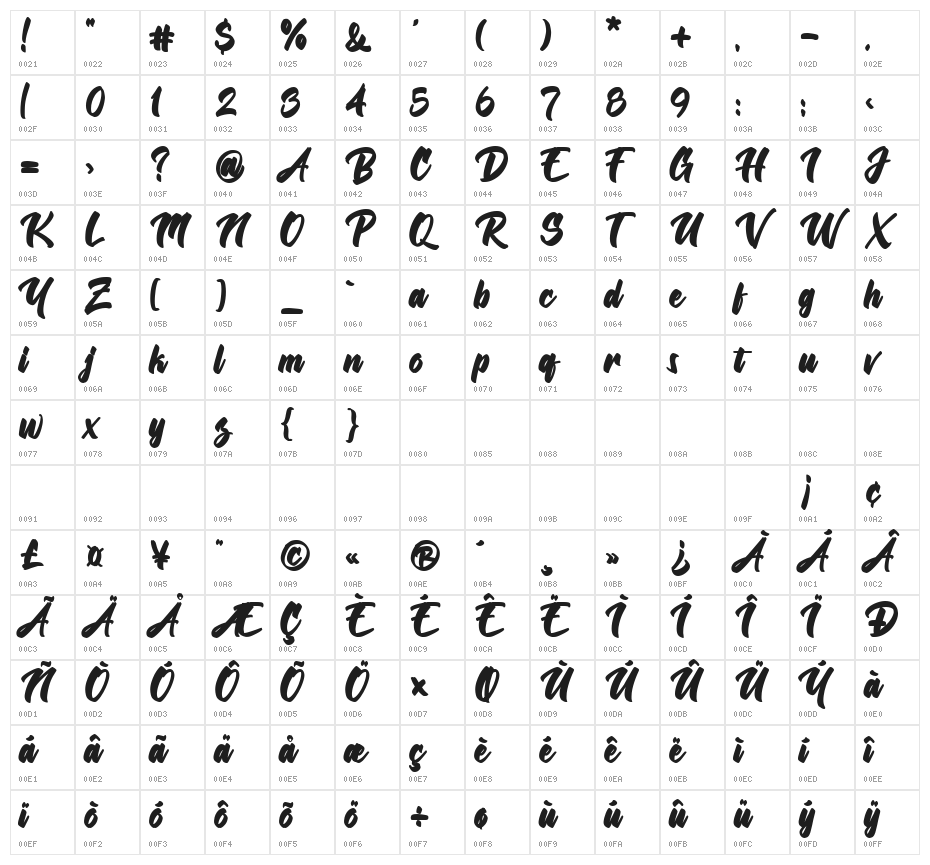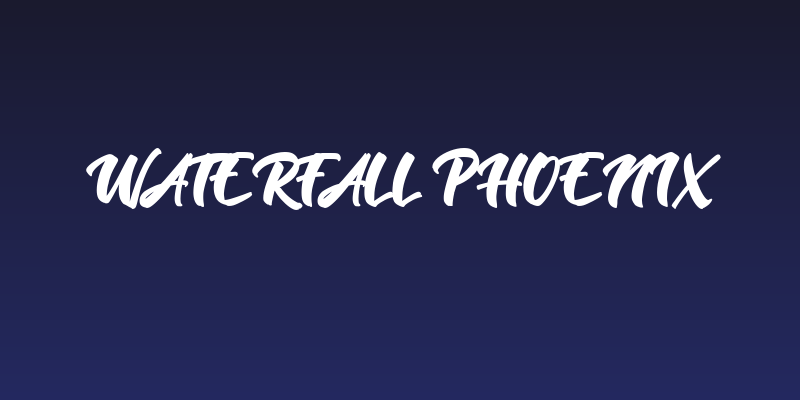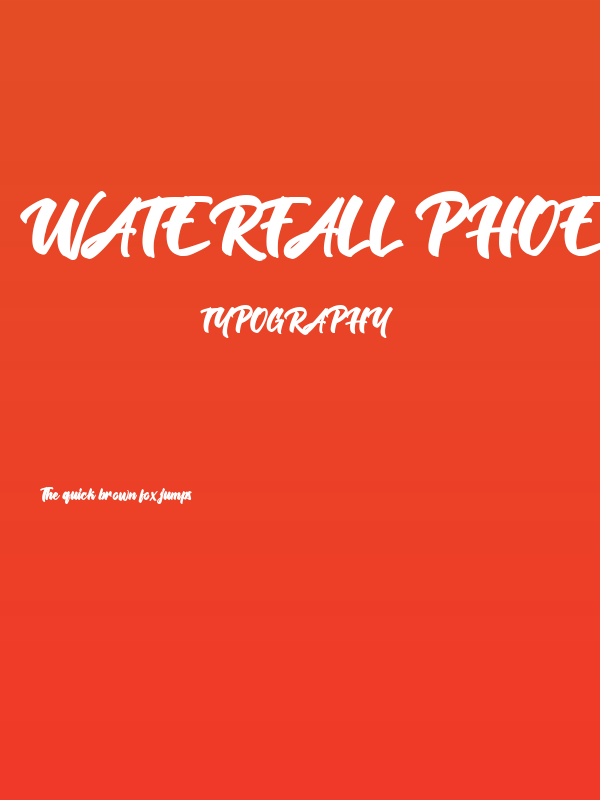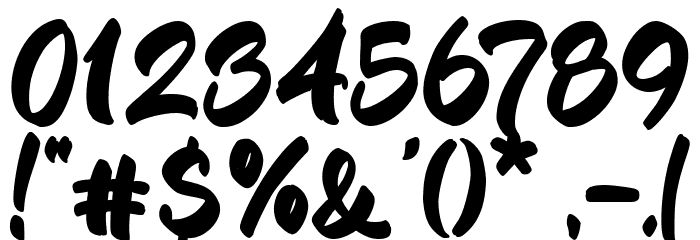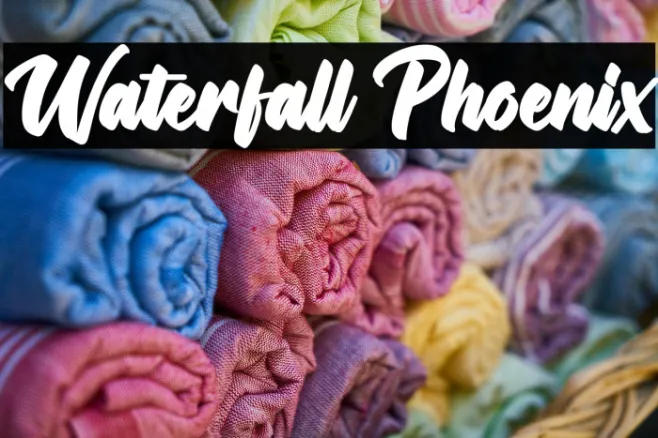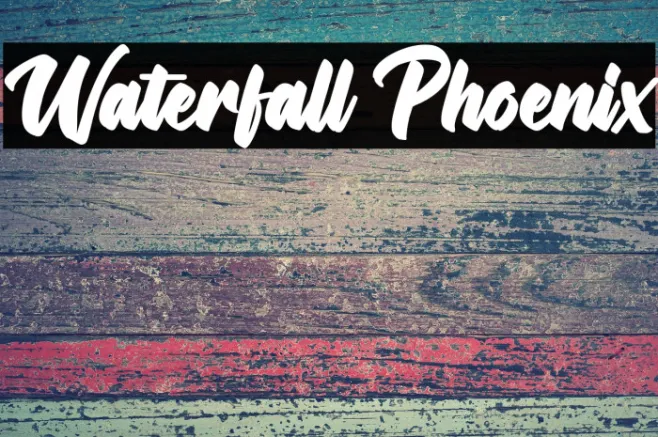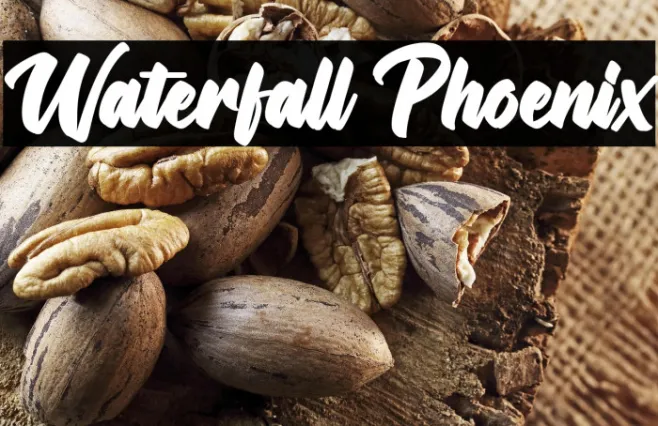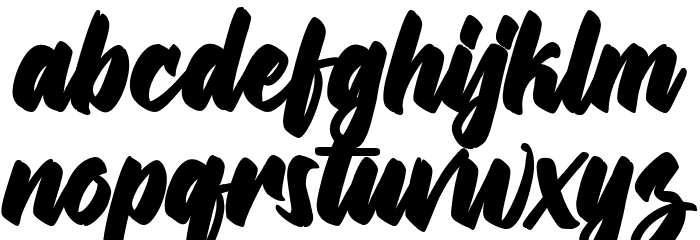
Waterfall Phoenix Font
Waterfall Phoenix Description
This font features a bold and dynamic script style, characterized by its fluid, cursive strokes and energetic flair. The letters are interconnected, creating a sense of movement and continuity. The uppercase letters are slightly larger and more pronounced, while the lowercase letters maintain a consistent flow. The numbers and special characters are designed to match the overall aesthetic, with similar curves and boldness. This font exudes a sense of creativity and expressiveness, making it ideal for projects that require a personal touch.
| Proposed Projects | Ideal for branding, invitations, greeting cards, and artistic projects that require a personal and expressive touch. |